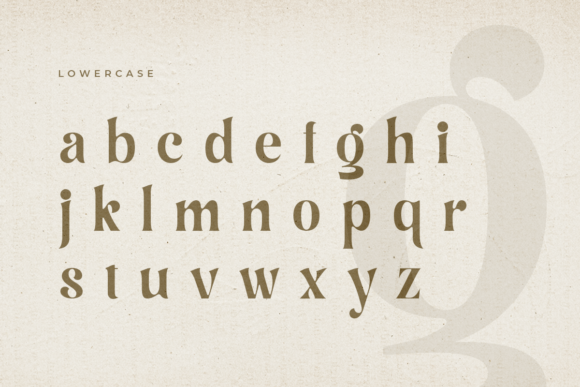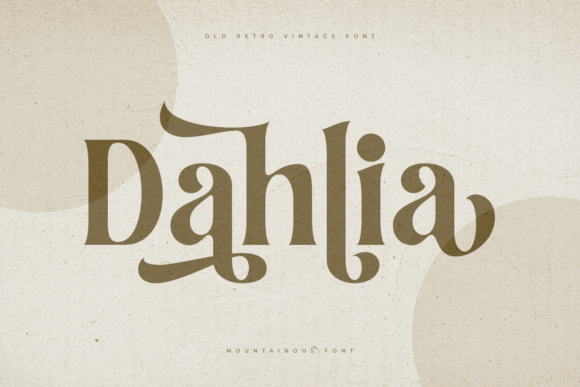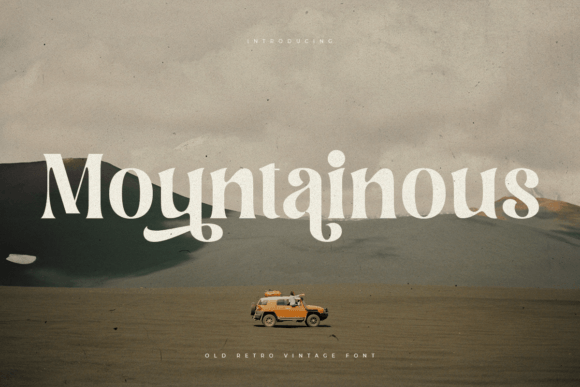
Montainous Font
Montainous Font is an Old Retro Vintage Font. An Old Retro Vintage font that is specially created with Display style for the Headline Vintage Retro Project, Unique branding needs, with extra alternates in a unique style that are ready to add value to your brand. It’s so nice to leverage designers or product owners who need solutions to make their designs look more unique and vintage.